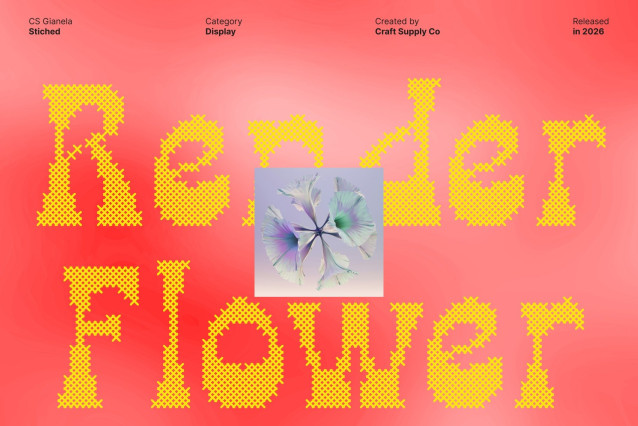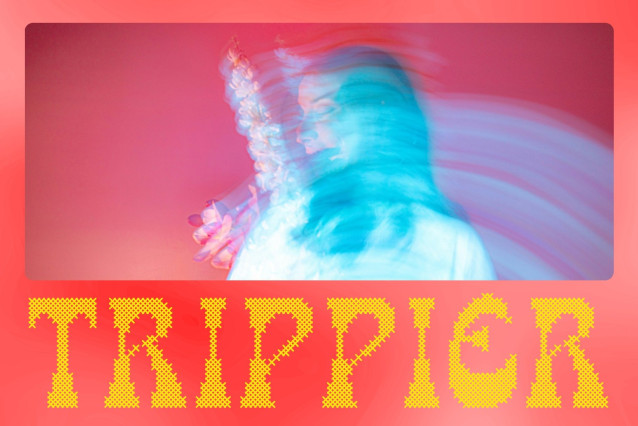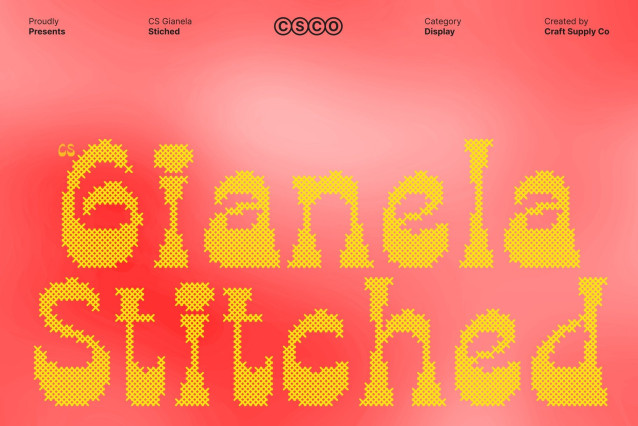
CS Gianela Stitched Font
CS Gianela Stitched – Reverse Contrast Font: Vintage Charm with Handcrafted Texture
Reverse Contrast with Stitched Character
This is a bold reverse contrast display font enhanced with a stitched embroidery texture. Its defining feature remains the dramatic contrast where stems appear thinner while the letter terminals become thicker, creating a lively and eye-catching rhythm. The added cross-stitch detailing introduces a tactile, fabric-like dimension that gives the font warmth and personality.
Retro Spirit with a Handmade Twist
Inspired by the bold aesthetics of the 60s and 70s, this font carries a nostalgic retro vibe while maintaining a contemporary feel. The stitched texture softens the bold structure, blending vintage charm with a cozy handcrafted impression that feels both classic and modern.